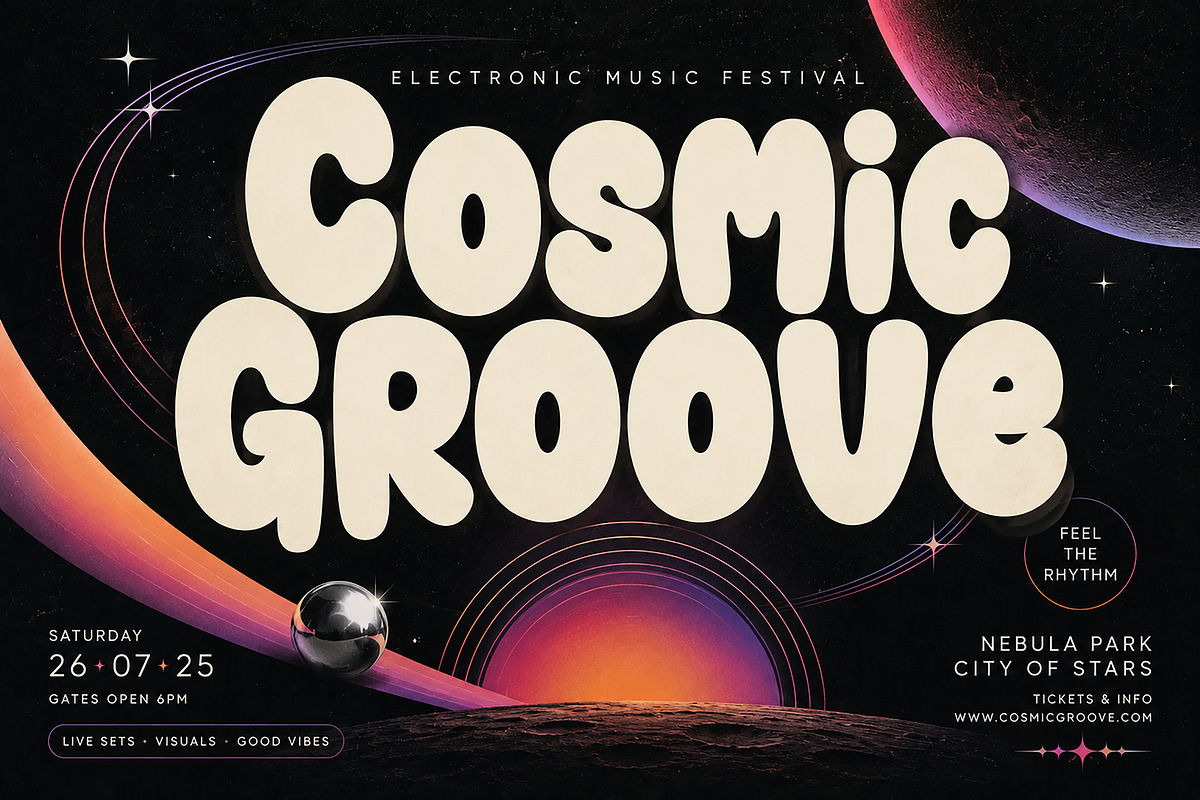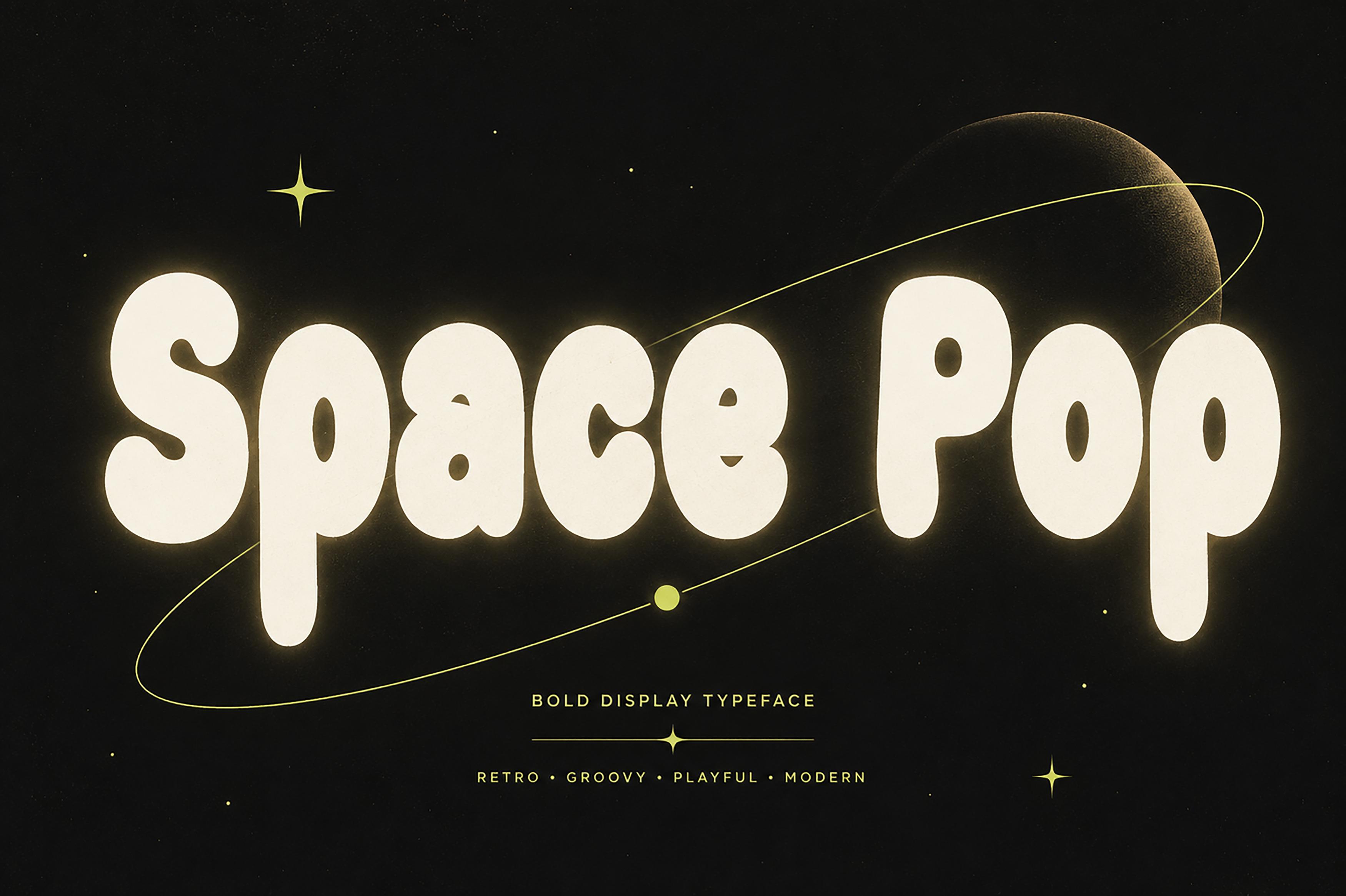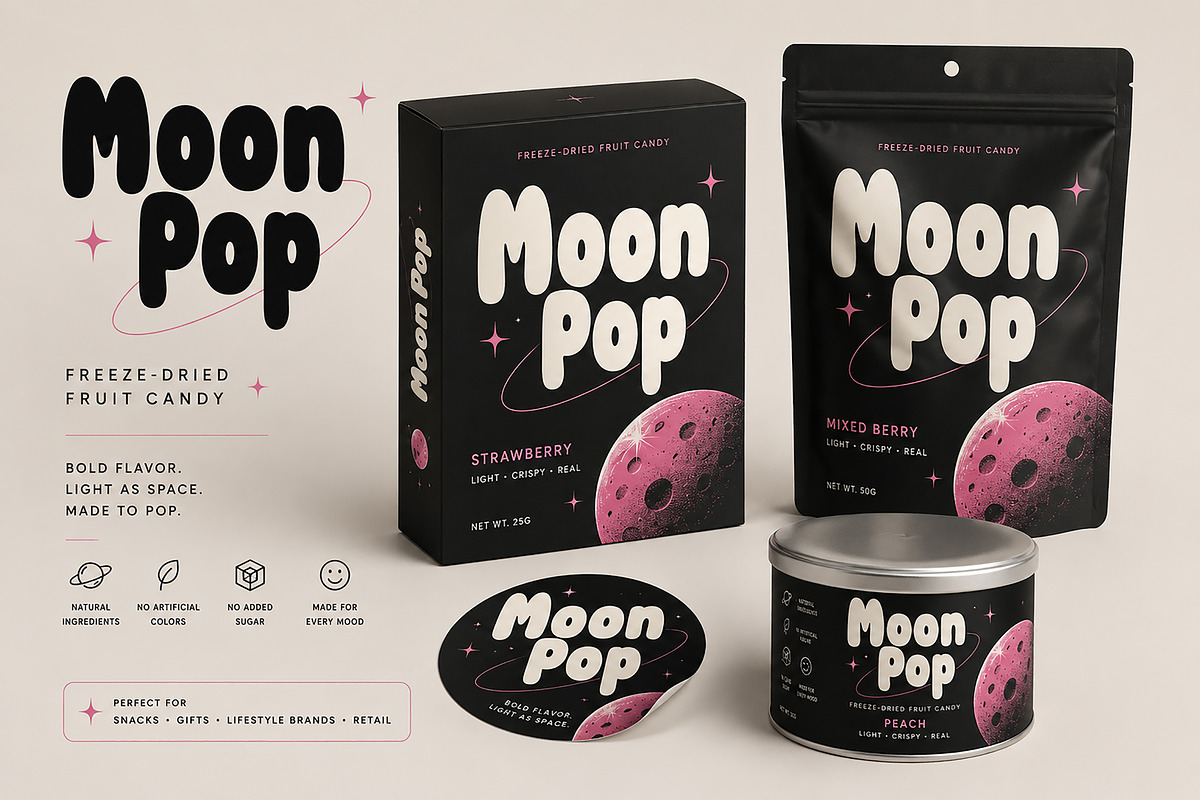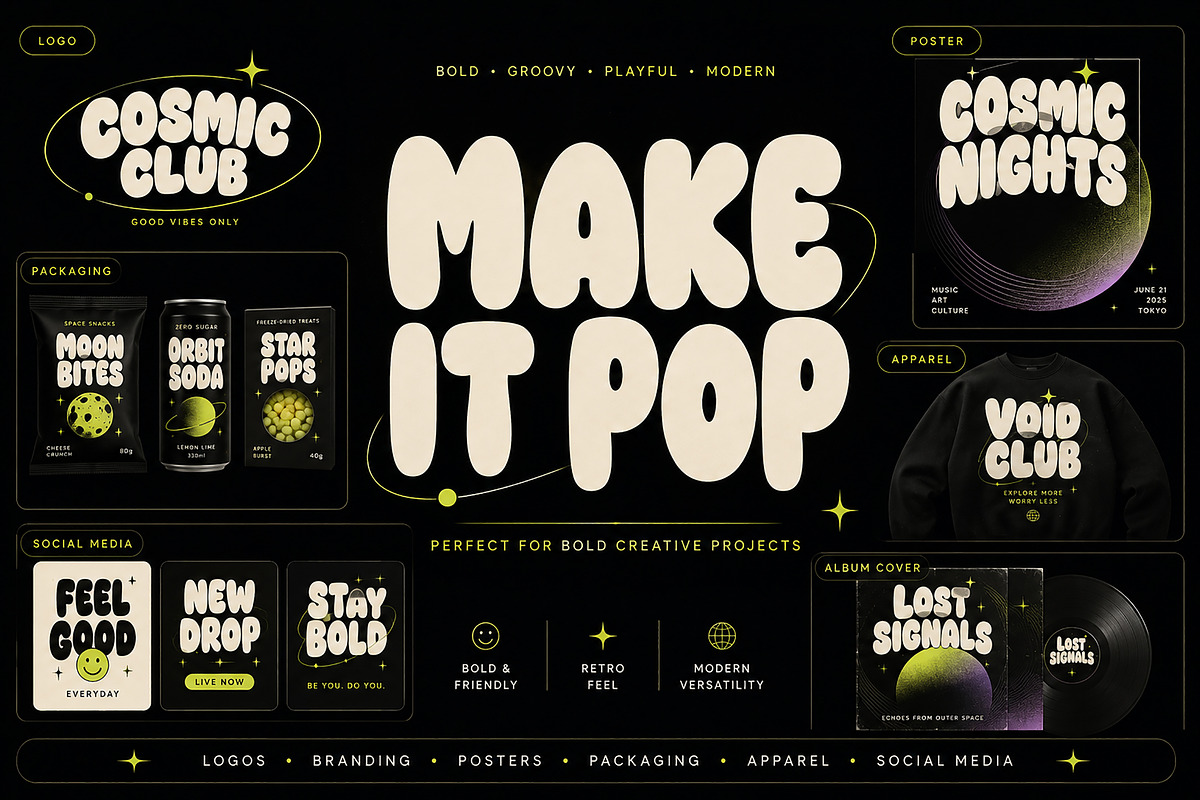
Space Pop – Bold Retro Display Font
Space Pop is a bold, playful display typeface packed with personality. Featuring chunky rounded forms, smooth curves, and an expressive retro-inspired look, Space Pop is designed to make headlines, logos, and creative projects instantly stand out.
Blending retro groovy aesthetics with a modern, space-age attitude, this font works beautifully across both fun and sophisticated designs. Its distinctive letterforms are perfect for designers looking to create memorable typography without relying on overly complicated visual elements.
From eye-catching posters and album artwork to packaging, apparel, branding, and social media graphics, Space Pop brings a bold and energetic voice to every project.
Logos & Branding • Posters & Headlines • Packaging Design • Apparel & Merchandise • Album Covers • Social Media • Advertising • Editorial Design • Creative Campaigns • Lifestyle Brands • Event Graphics • Stickers & Labels
Font Style
Bold • Groovy • Retro • Playful • Rounded • Expressive • Modern
Font Type: Display Typeface
Space Pop is especially suited for large typography where its unique shapes and playful character can take center stage.
Make it bold. Make it memorable. MAKE IT POP.